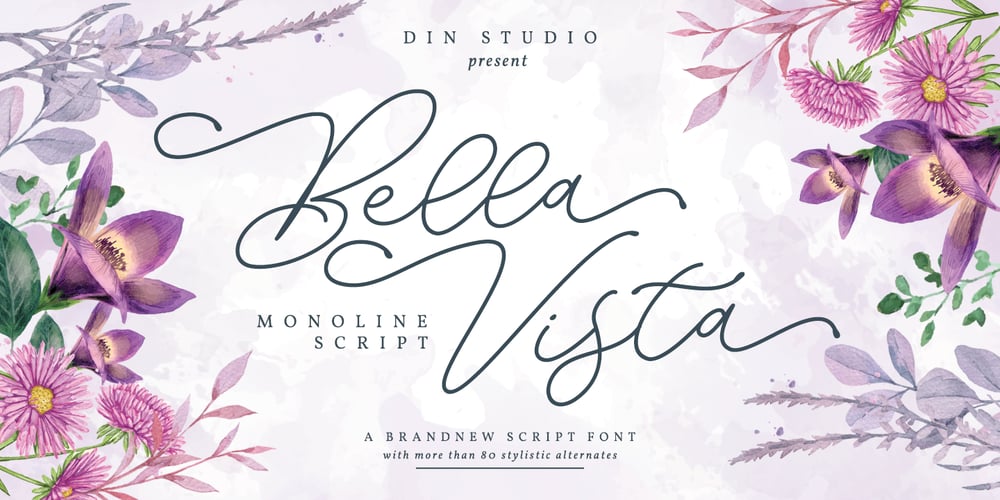
Bella Vista Font Family was designed by Donis Miftahudin and published by Din Studio. Bella Vista contains 2 styles and family package options. Bella Vista is a monoline script and is suitable for any design like branding, fashion, print template, quotes, weddings and more.Features : 121 Beautiful Alternates 6 Beautiful Ligatures PUA encoded Multilingual Support Numerals and Punctuation (OpenType Standard) Thanks for visiting and purchasing my font Donis MDin Studio